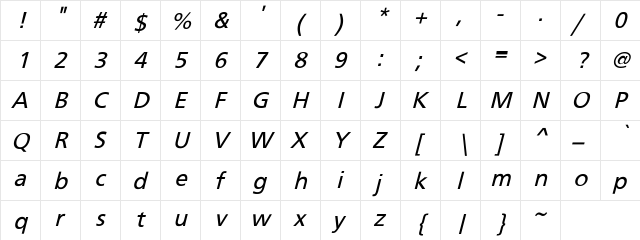
BudboyerObl-Nor Regular
Design Context for BudboyerObl-Nor Typeface
BudboyerObl-Nor is a composed and adaptable typeface that performs quietly and consistently across a wide range of design contexts.